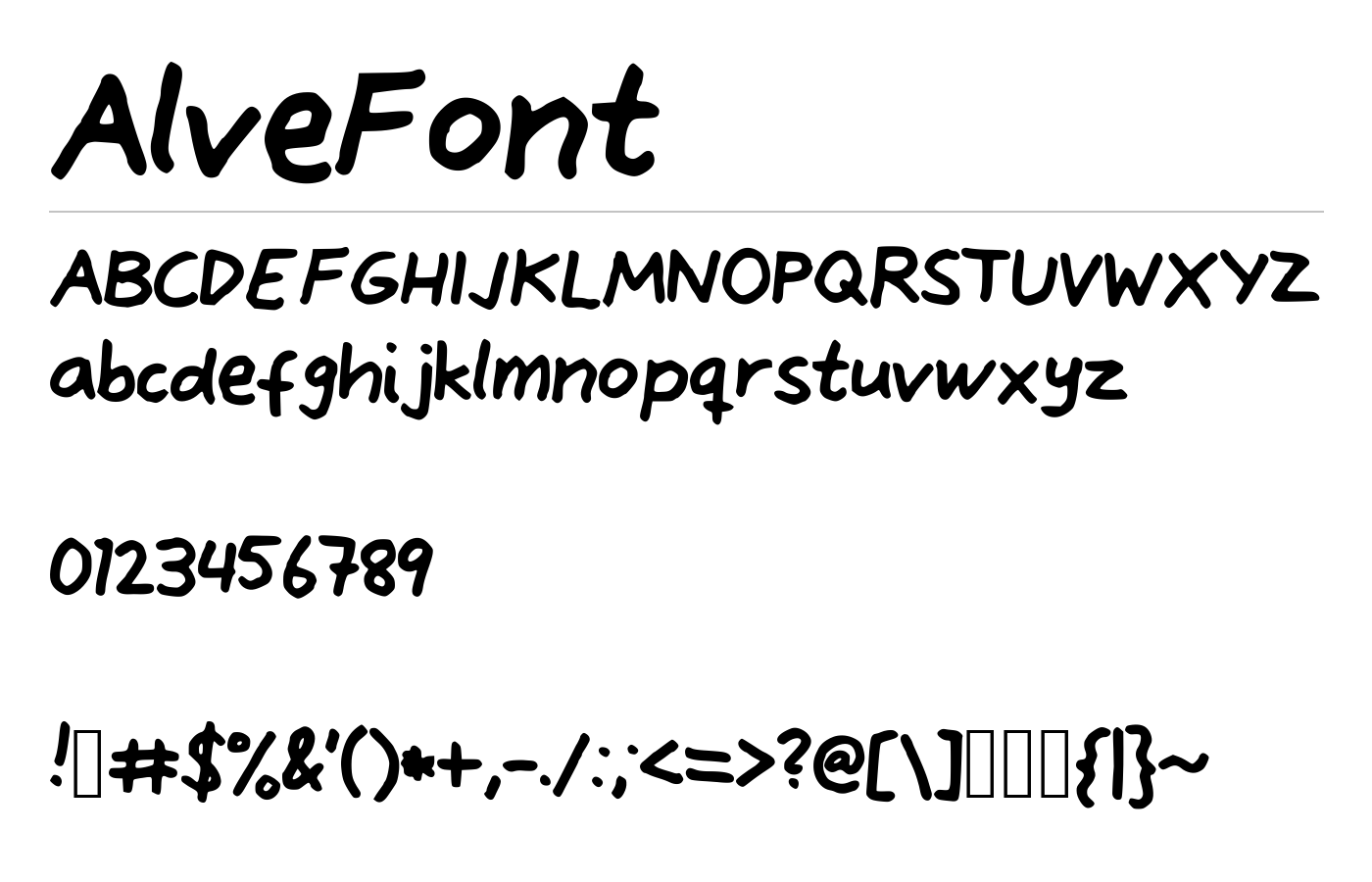
AlveFont is a casual, handwritten-style sans serif font with a lively and friendly character, featuring slightly irregular strokes and a warm, approachable feel. Its moderate weight, open letterforms, and rounded edges make it perfect for designs seeking a personal, informal touch, ideal for playful branding, kid-friendly projects, and creative headlines. This font works well when you want to convey warmth and approachability without sacrificing readability.
AlveFont
About AlveFont